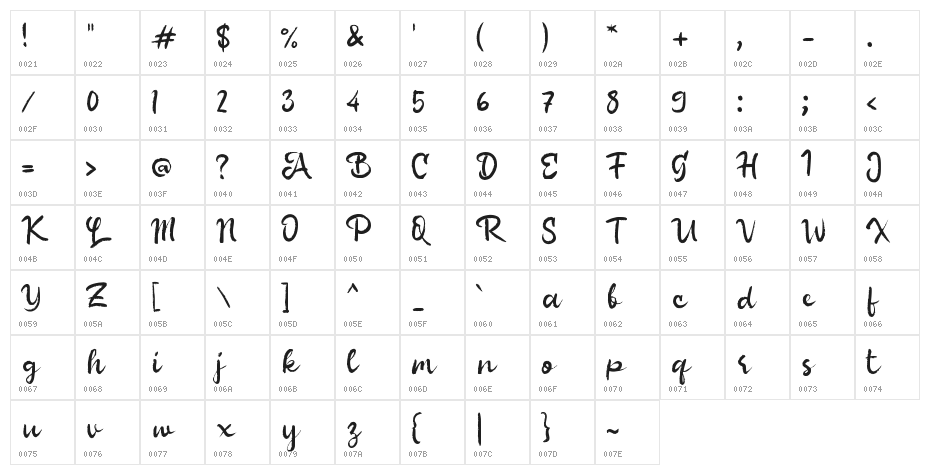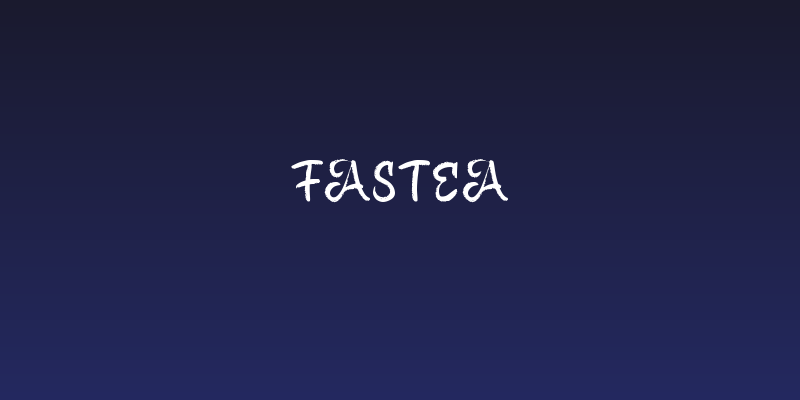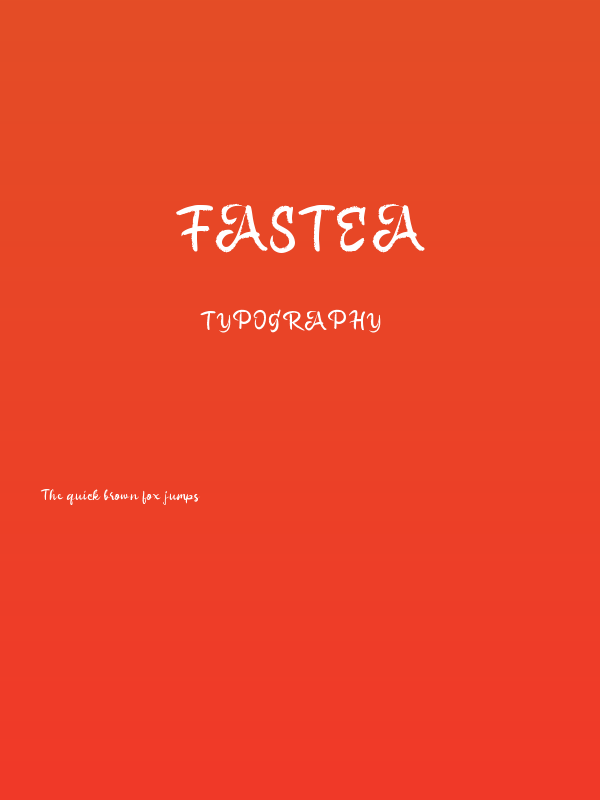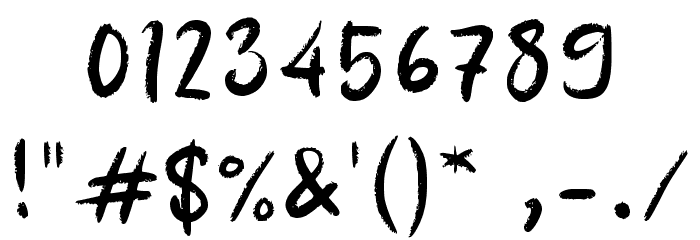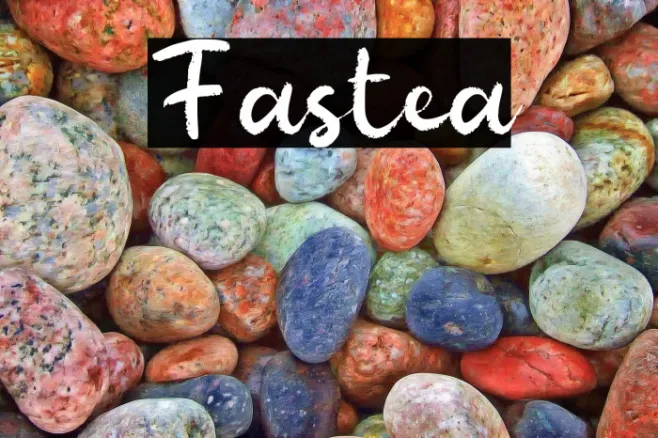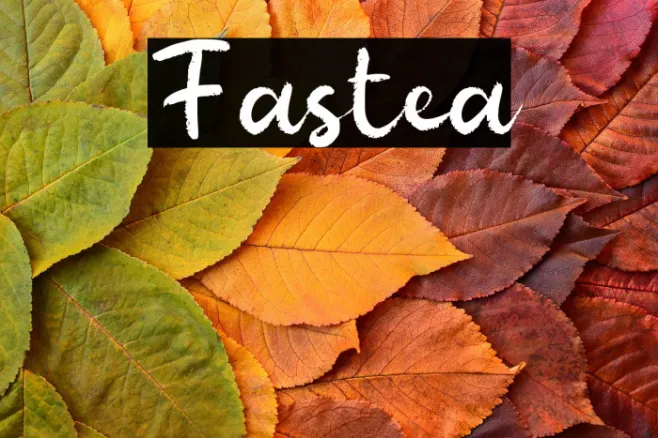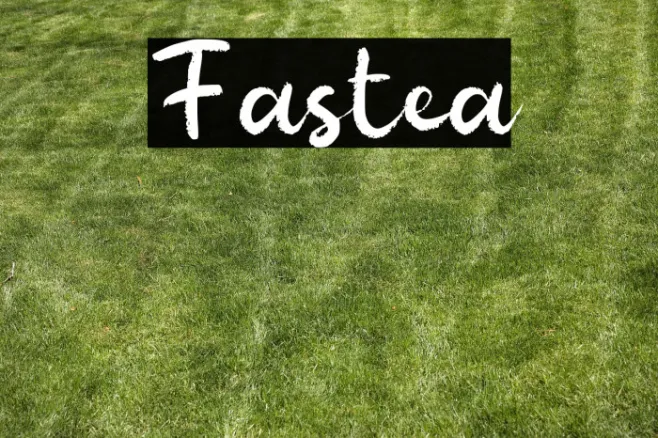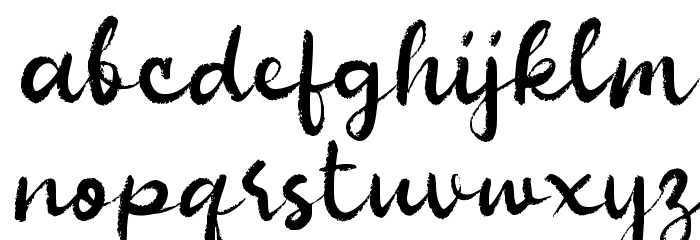
Fastea Font
Fastea Description
This font features a dynamic and expressive handwritten style, characterized by its fluid strokes and artistic flair. The uppercase letters exhibit a bold and confident presence, while the lowercase letters maintain a consistent flow with elegant curves. The numerals are clear and distinct, complementing the overall aesthetic. Special characters are thoughtfully designed to match the font's energetic style. The brush-like texture adds a personal touch, making it suitable for creative and informal applications.